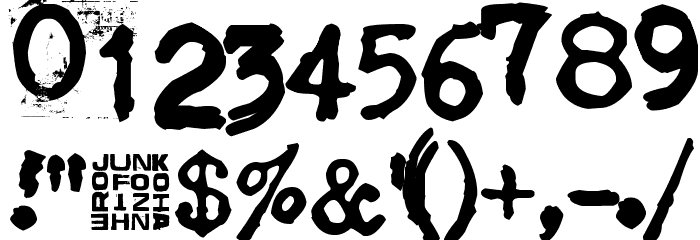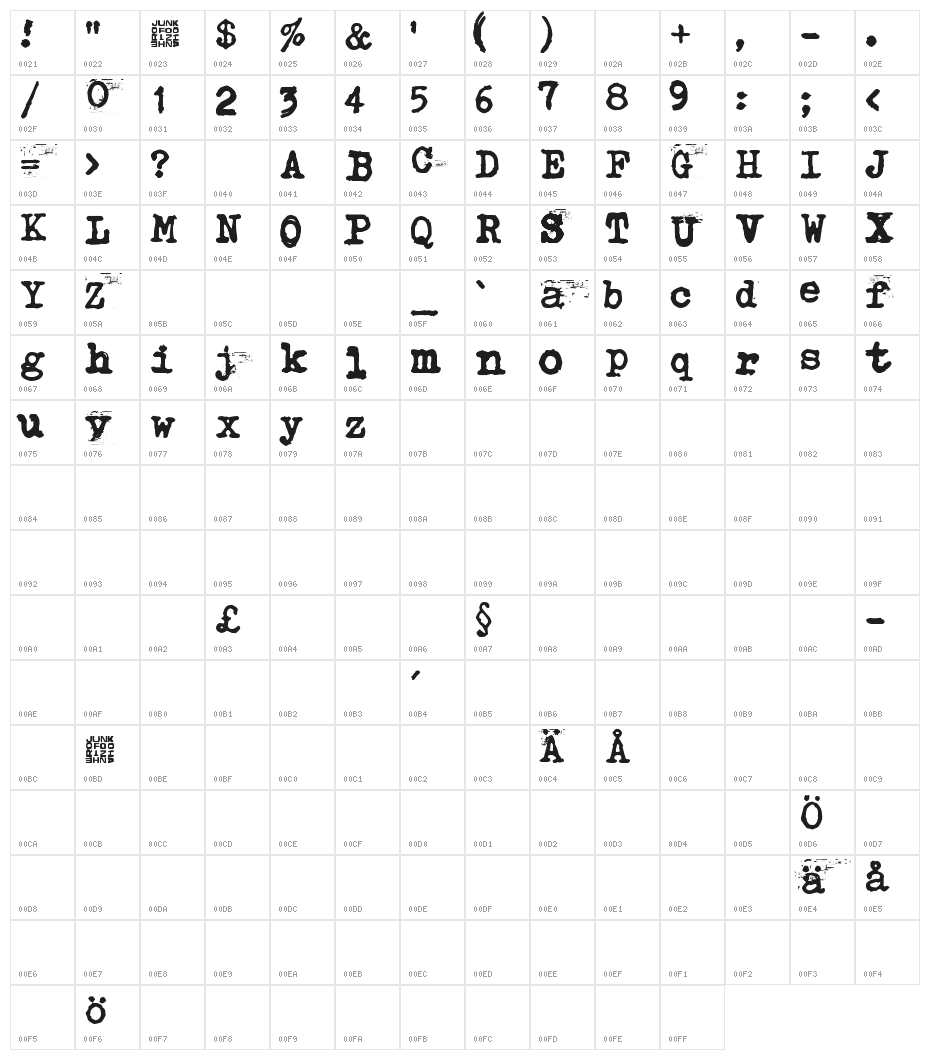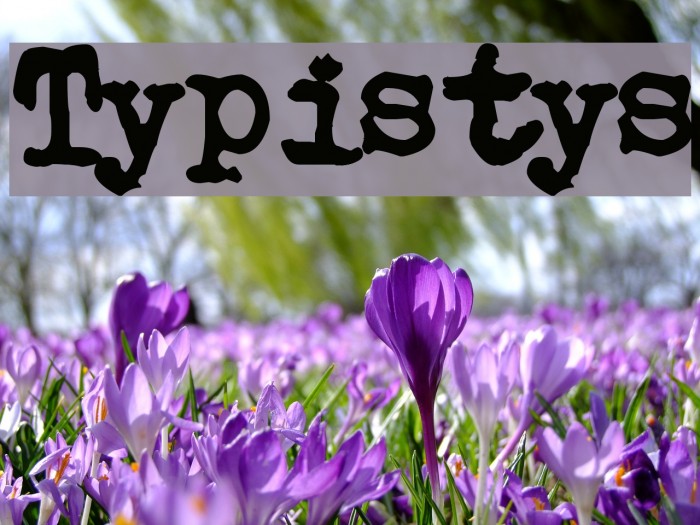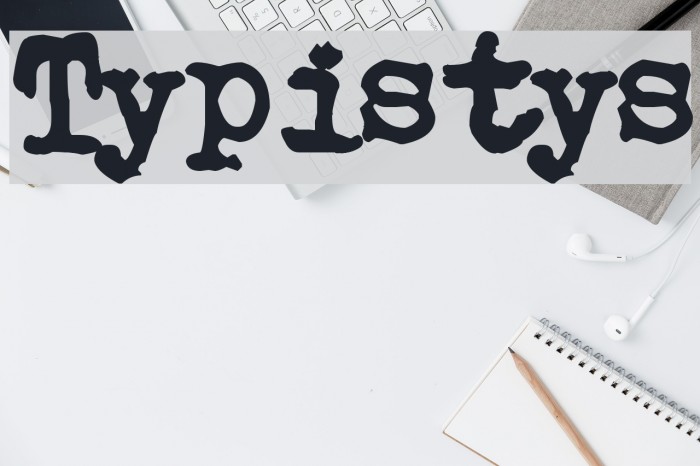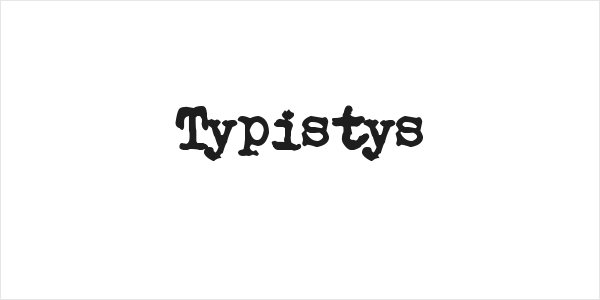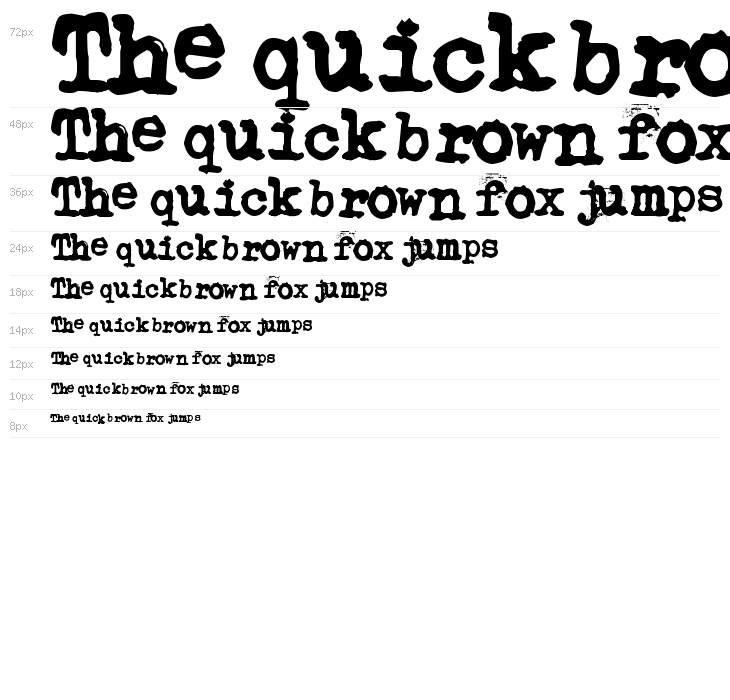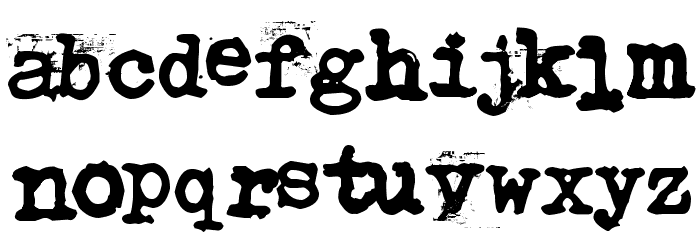
Typistys Font
Typistys Description
This font features a distressed, grunge style with irregular edges and a textured appearance, giving it a vintage and worn feel. The characters are bold and have a hand-crafted look, reminiscent of old typewriter fonts but with a modern twist. The uppercase and lowercase letters maintain a consistent style, while the numbers and special characters add to the font's unique personality. The overall aesthetic is both rugged and artistic, making it suitable for projects that require a bold statement.
| Overall Style | Vintage, Grunge |
| Proposed Projects | Ideal for album covers, posters, branding for edgy or alternative products, and any design needing a bold, artistic touch. |